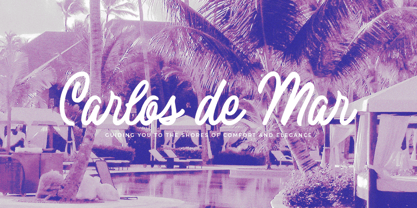
Palma Serena
von Letterhend
Die Schriftfamilie Palma Serena wurde von Hendry Juanda entworfen und von Letterhend veröffentlicht. Palma Serena enthält 1 Stile. Mehr über diese Familie
Palma Serena is a handwritten script font that radiates elegance and warmth, making it ideal for creating timeless and personable designs. With its smooth curves and organic flow, this font is perfect for branding, invitations, greeting cards, logo designs, and more. Its delicate strokes give it a sophisticated yet approachable look,